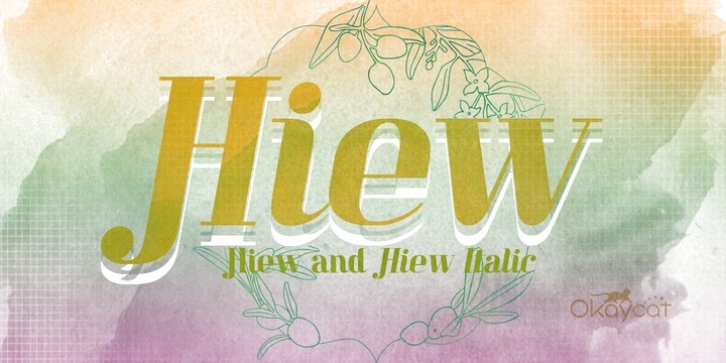
Hiew was designed by Natsuko Hayashida and published by Okaycat. Hiew contains 2 styles and family package options.
Okaycat presents 'Hiew'. Hiew is a connected font with serif, some bold personality making your message clear. Includes European accents and extra characters to meet publication needs.